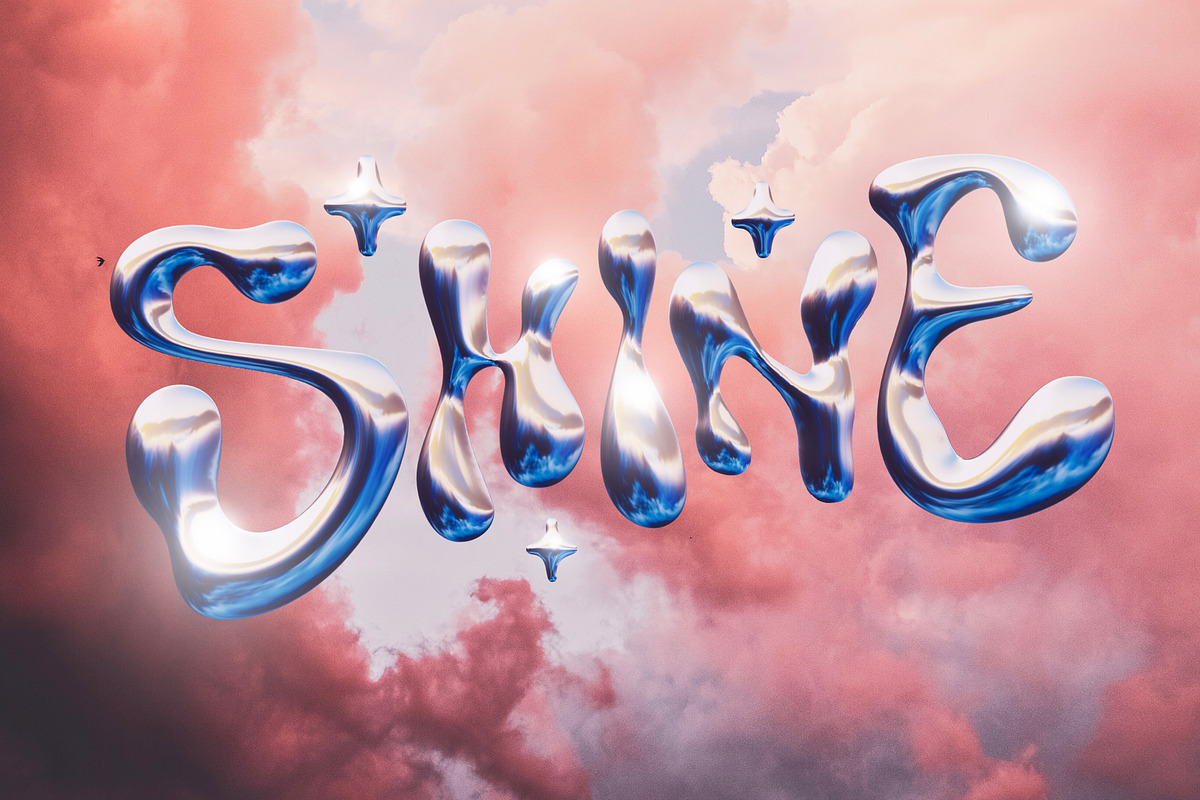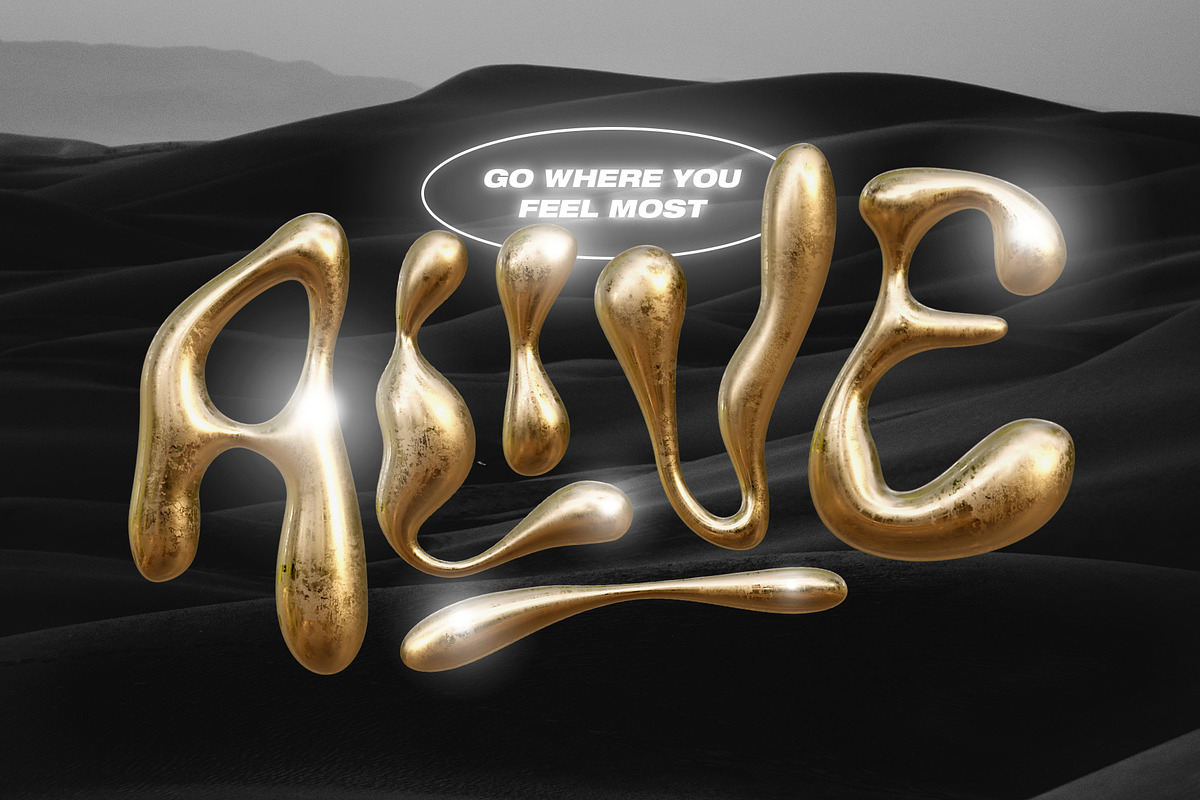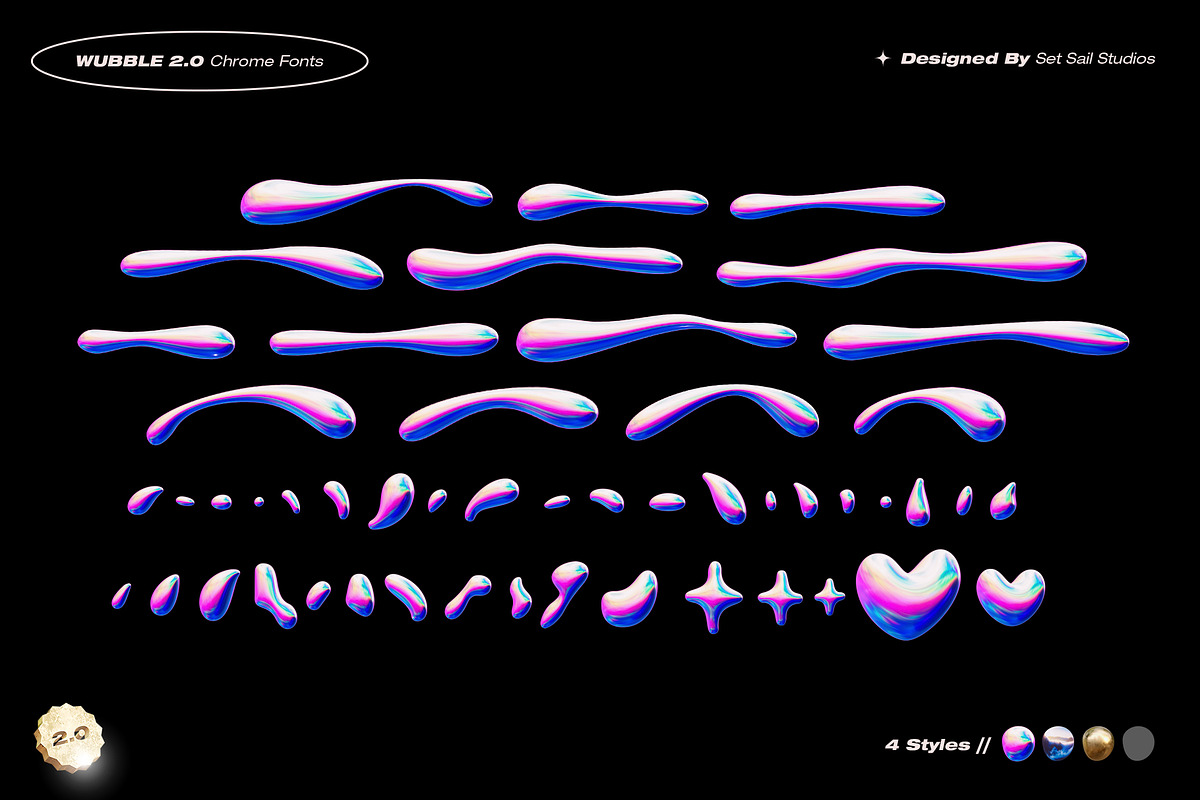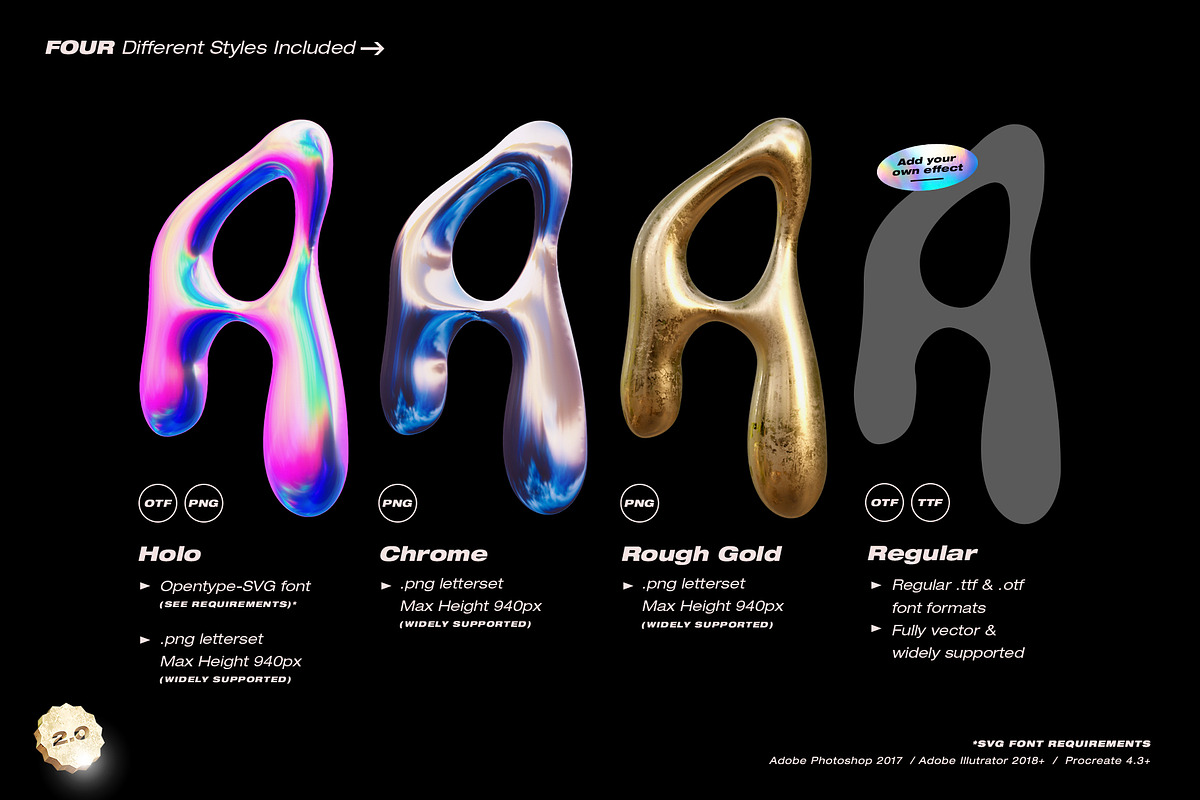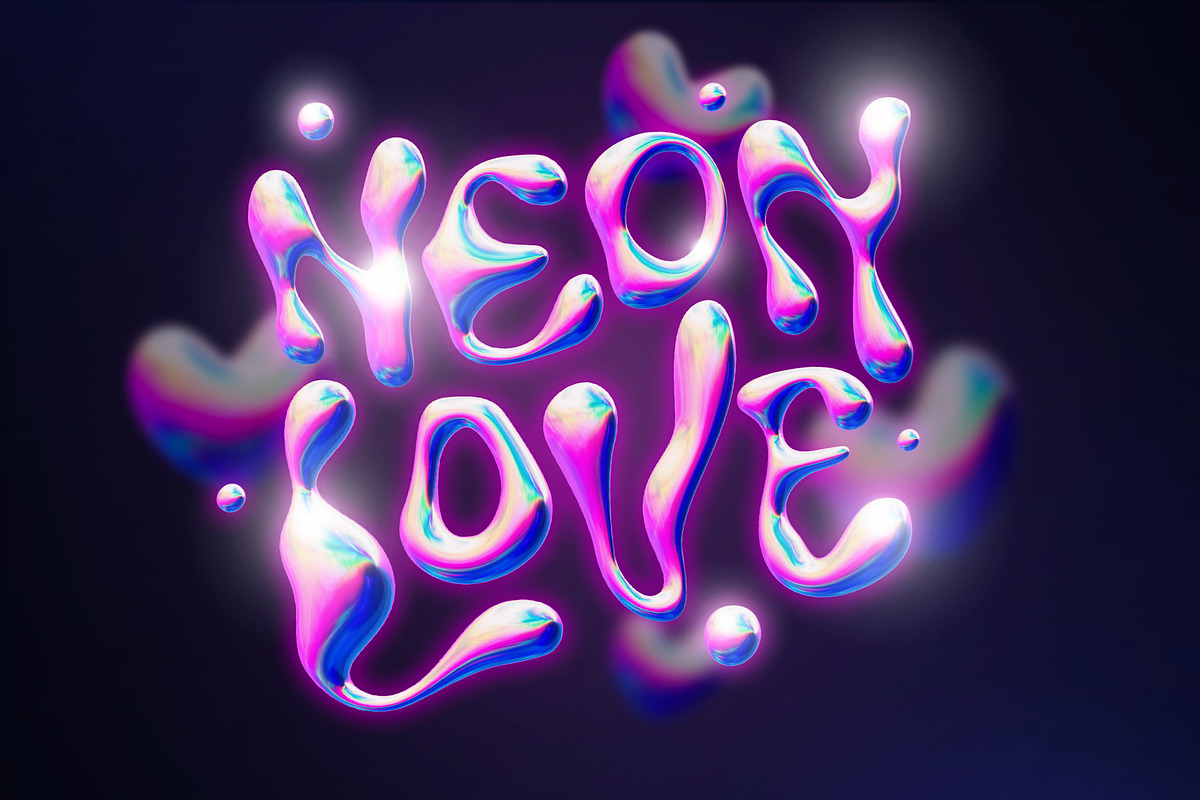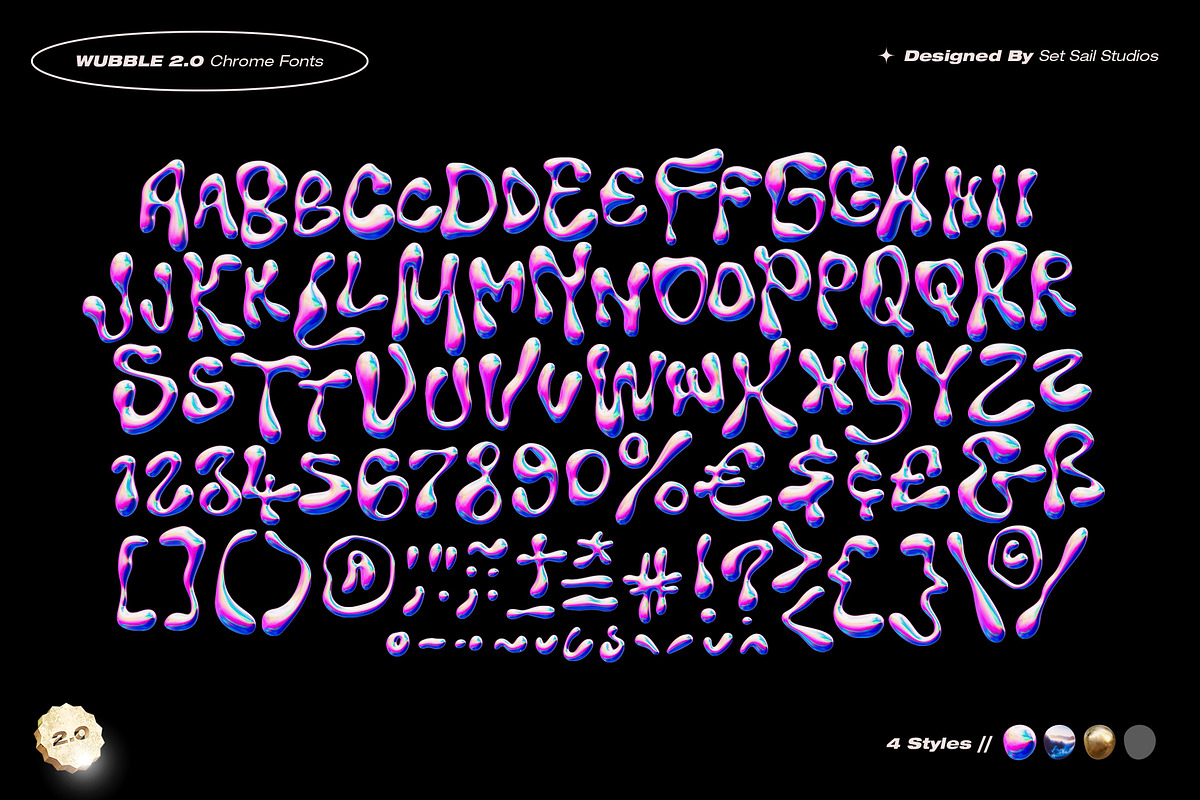
Wubble 2.0 3D Chrome Font Set
The Wubble font is back with some more 3D lettered goodness, this time with 3 brand new ultra-realistic textures! Introducing Wubble 2.0! A set of 2 SVG fonts, 2 Regular OTF fonts, and 3 sets of .png characters in 3 new styles—Glossy Chrome, Rough Gold, and Holographic. Ideal for huge impact display text with a Y2K inspired aesthetic.
The Wubble 2.0 character sets include a full set of upper and lowercase characters, including numerals, punctuation, and multilingual support. It also includes a set of 50 swashes and shapes to compliment your typography.